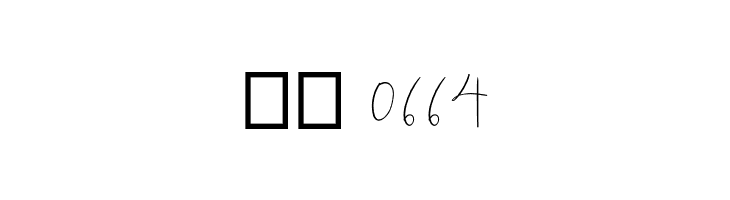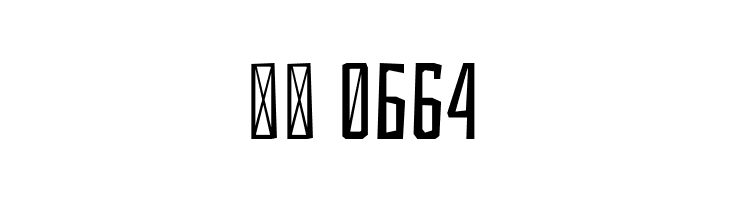
• Badhandwriting
( Ellen Landman )
A playful, casual handwritten font with irregular, flowing letterforms.
• Badhie Dope
A lively handwritten font with fluid, dynamic strokes and a playful aesthetic.
• BadhieDope
A lively, expressive handwritten font with fluid strokes and a casual elegance.
• Badiane
( Fonts by www.dcoxy.com )
An elegant, whimsical font with intricate swirls and loops.
• Badiane
An elegant, whimsical font with flowing, cursive-like strokes and intricate loops.
• Badiane Bold
( Fonts by www.dcoxy.com )
A whimsical and elegant script font with decorative swirls and bold strokes.
• Badiane Bold
An elegant, whimsical script font with decorative curls and loops.
• Badinerie Christmas
A festive, decorative font with Christmas-themed embellishments.
• Badinerie LoveDemo
( JBFoundry - Jean Boyault - jean.boyault.pagesperso-orange.fr/ )
A romantic script font with heart motifs and elegant, flowing letters.
• BadIntentions
( Fonts by Des Gomez )
A playful, hand-drawn font with bold outlines and decorative patterns.
• badjang DEMO
A playful, bold outline font with rounded, smooth characters.
• BadlandsRegular
A rugged, distressed font with sharp, angular lines and a hand-drawn appearance.
• badlobster Normal
( David Luscombe - www.davidluscombe.com/ )
A modern, minimalist font with geometric and sleek design.
• Badlooking_Brush
A dynamic brush script font with bold, textured strokes and an artistic flair.
• BadLuck
A bold, shattered glass effect font with fragmented, edgy characters.
• Badly Stuffed Animal DEMO Reg
( Fonts by Pizzadude )